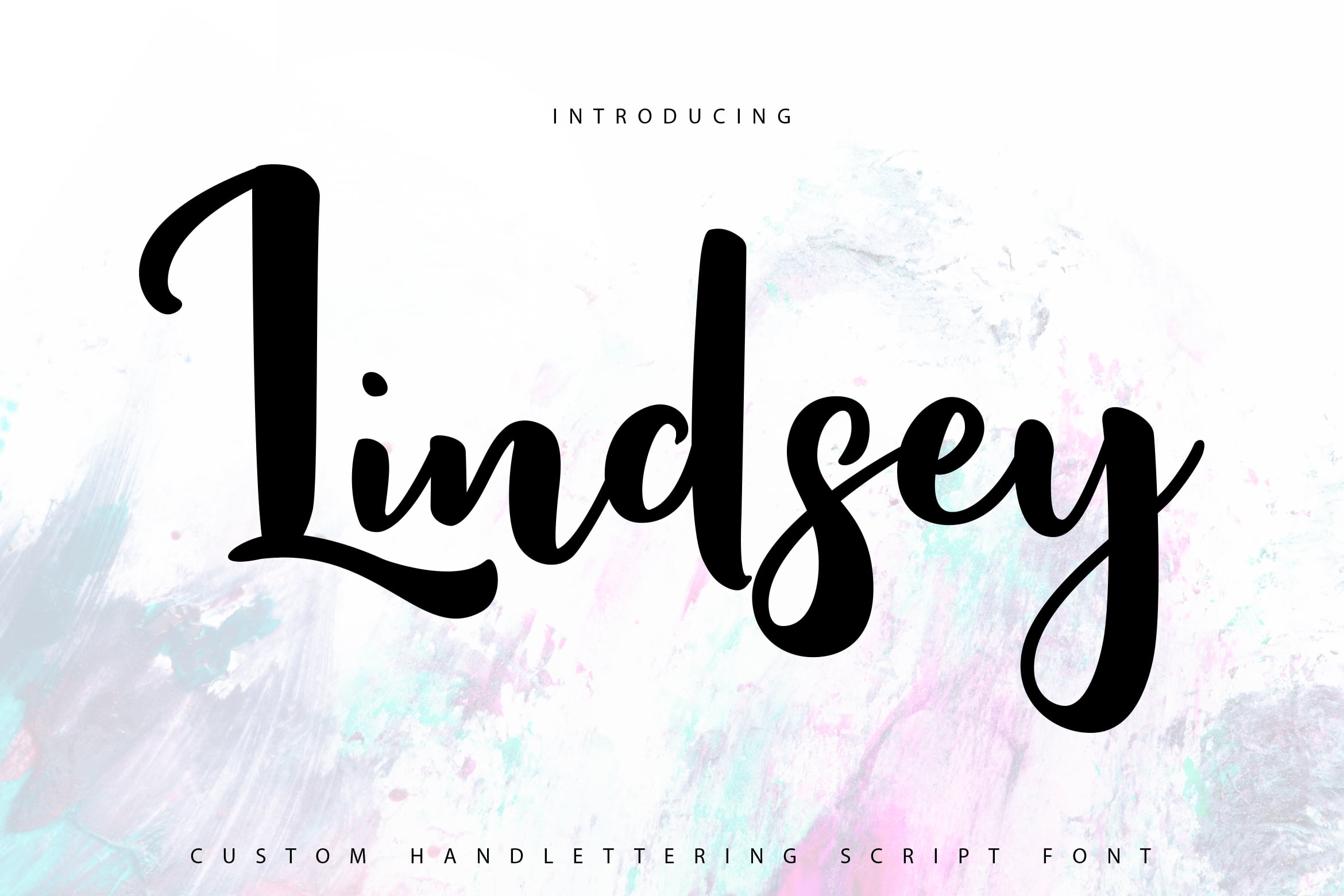
Lindsey Signature Font
Lindsey Signature Font - Web lindsey signature is a casual script font replicating the spirit of natural handwriting.opentype features include.